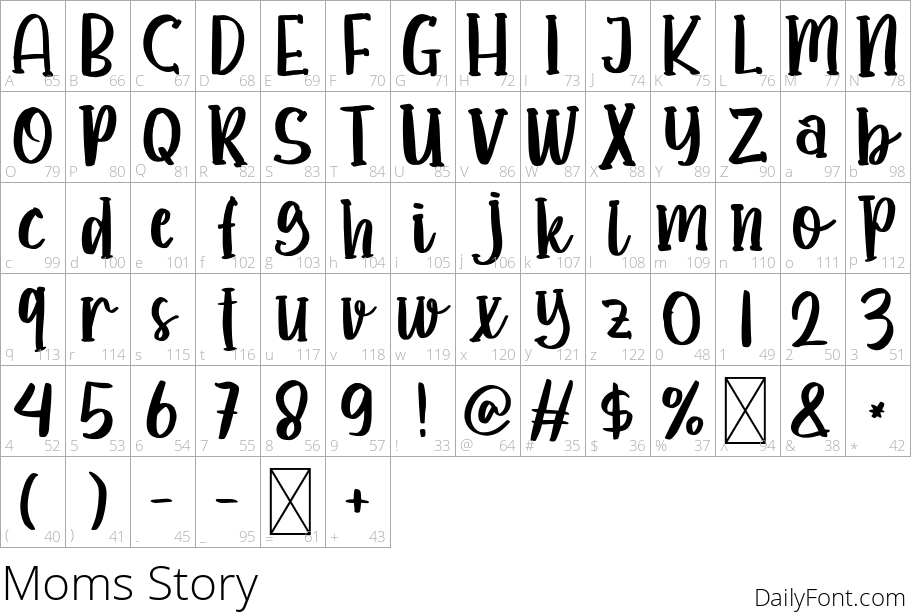
Mom's Story
Mom's Story is an enchanting, playful, and distinctive handwritten typeface. Perfect for designs related to cartoons, kids' activities, quotes, headings, trademarks, book jackets, placards, or any project that needs a sprinkle of charm, this font is an excellent selection.